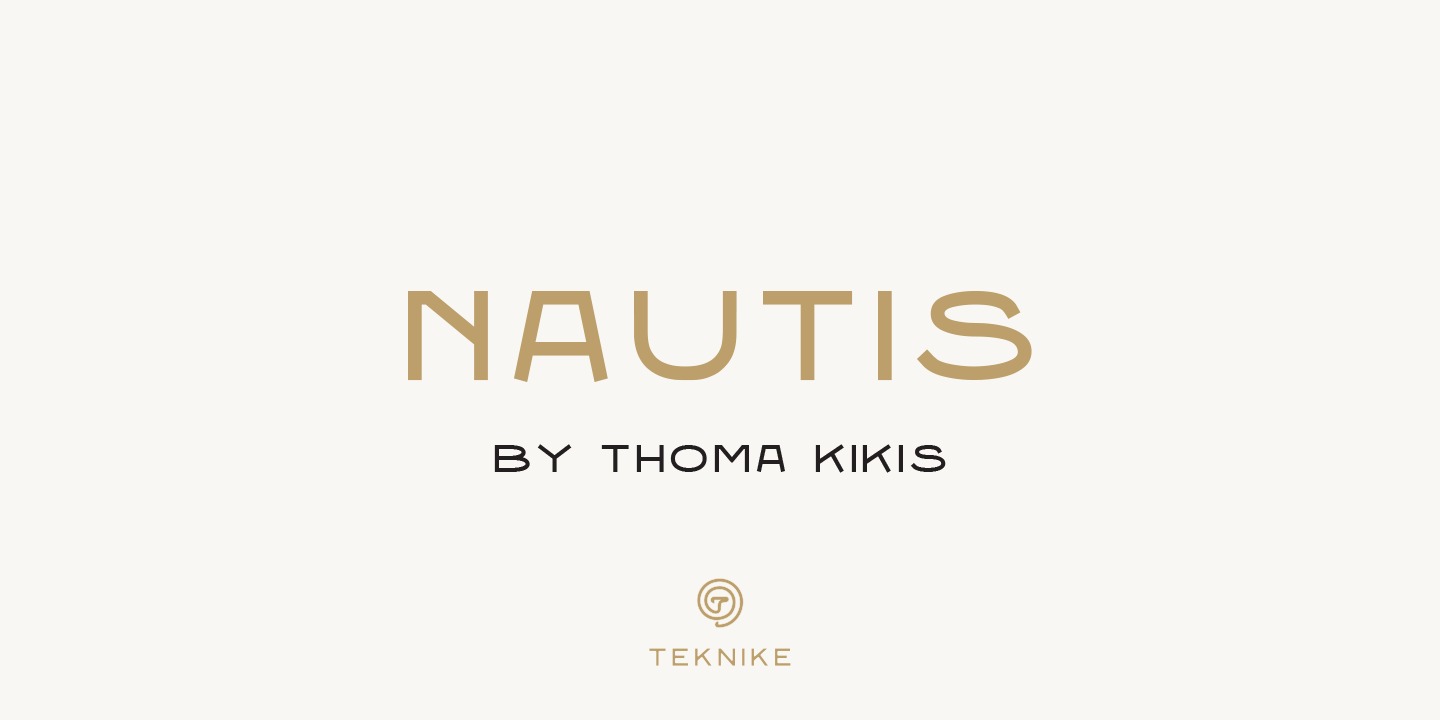
Nautis Font is perfect for maritime companies, sailing clubs, ocean exploration organizations, naval academies, yacht manufacturers, marine engineering firms, coastal tourism brands, nautical museums, and any project requiring typography with seafaring adventure and navigational precision aesthetics.
What makes Nautis Font exciting is its maritime mastery that captures the bold spirit and navigational precision of seafaring adventure with letterforms that embody the strength and reliability required for ocean voyages and maritime exploration. This commanding typeface reflects the discipline and expertise of professional mariners with structured geometry that mirrors the precision of nautical instruments and the unwavering accuracy needed for safe navigation across vast oceanic expanses. The font's nautical character and maritime sophistication make it perfect for projects celebrating seafaring heritage, ocean exploration, and the timeless romance of life on the high seas.
The Nautis Font family includes regular and bold weights, featuring complete uppercase and lowercase alphabets, numerals, punctuation marks, and nautical design elements. The font maintains consistent maritime elegance throughout all weights while ensuring excellent readability for both commanding headlines and detailed navigational text applications in marine and adventure contexts.
Whether you're designing for shipping companies, creating maritime education materials, or developing nautical branding with seafaring aesthetics, Nautis Font Free Download delivers unmatched maritime authority and oceanic sophistication to your projects. This exceptional typeface transforms ordinary text into powerful expressions of seafaring expertise that honor the courage, skill, and adventure of maritime traditions. The font's nautical character makes it ideal for marine industries, sailing organizations, and ocean-focused businesses. Download this remarkable font today and bring the commanding presence of maritime mastery to your design projects with authentic nautical sophistication and seafaring excellence.